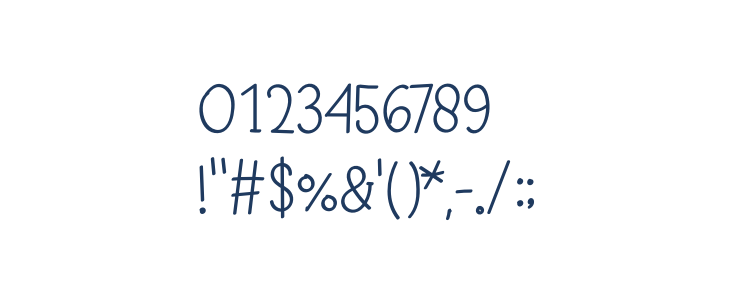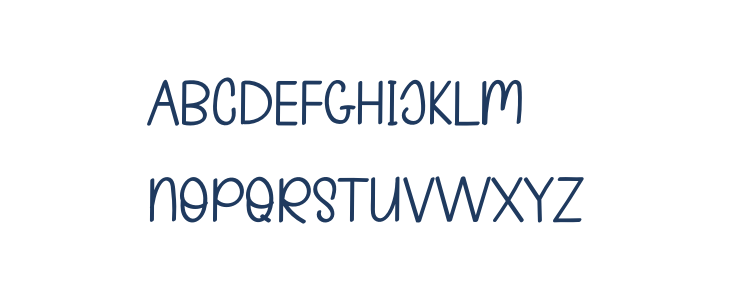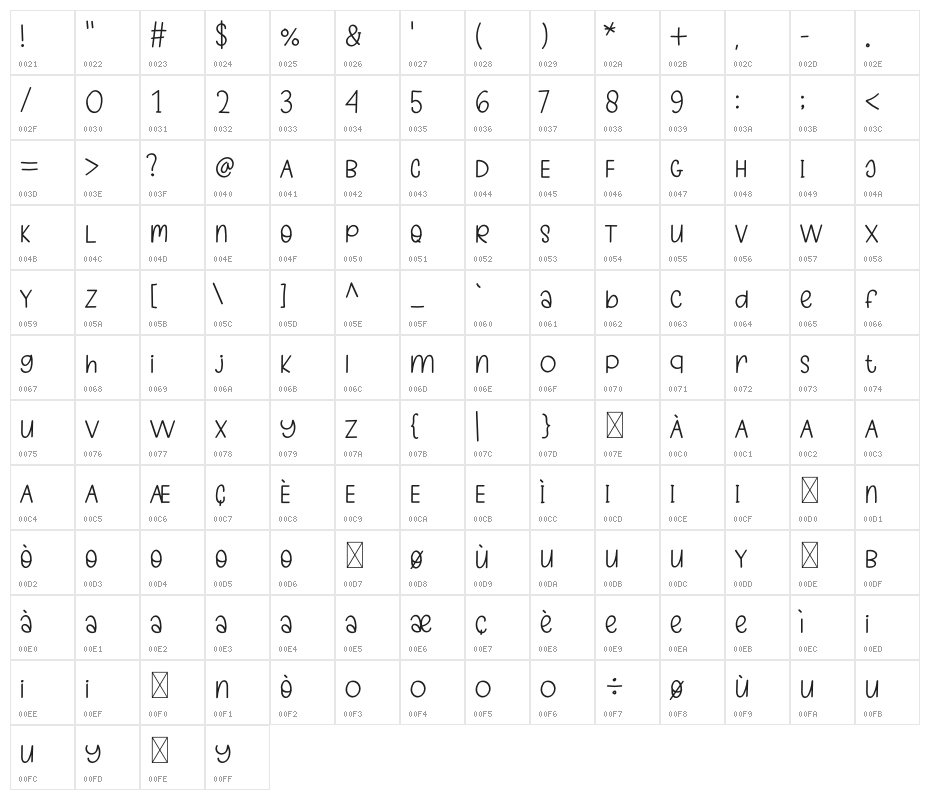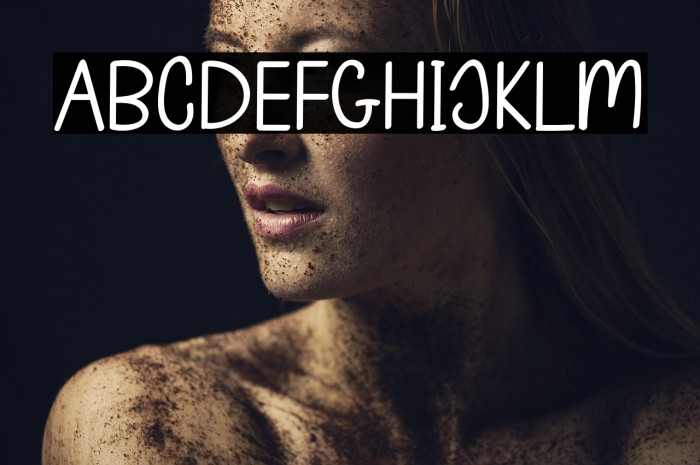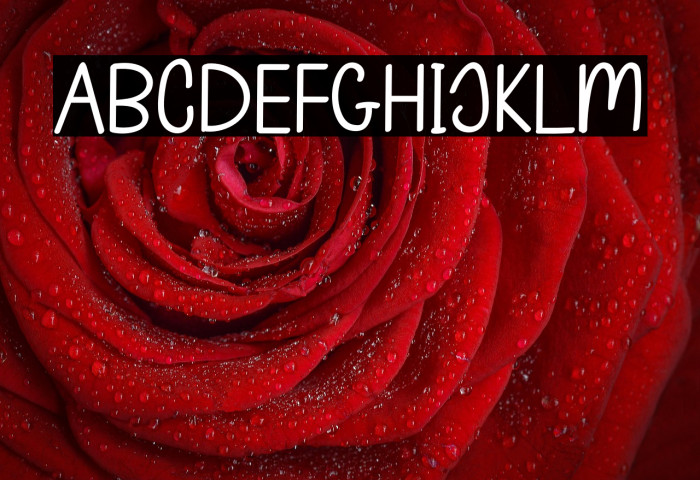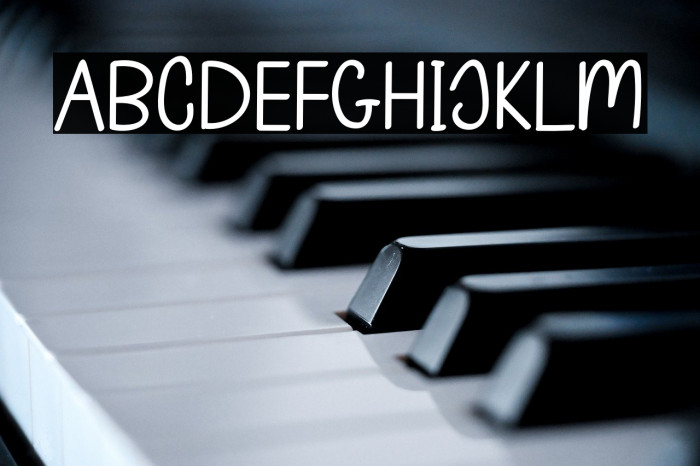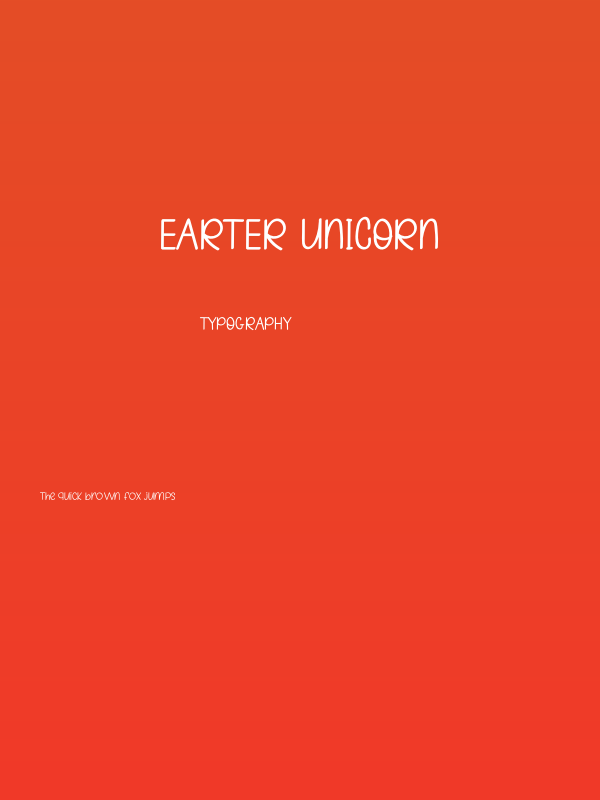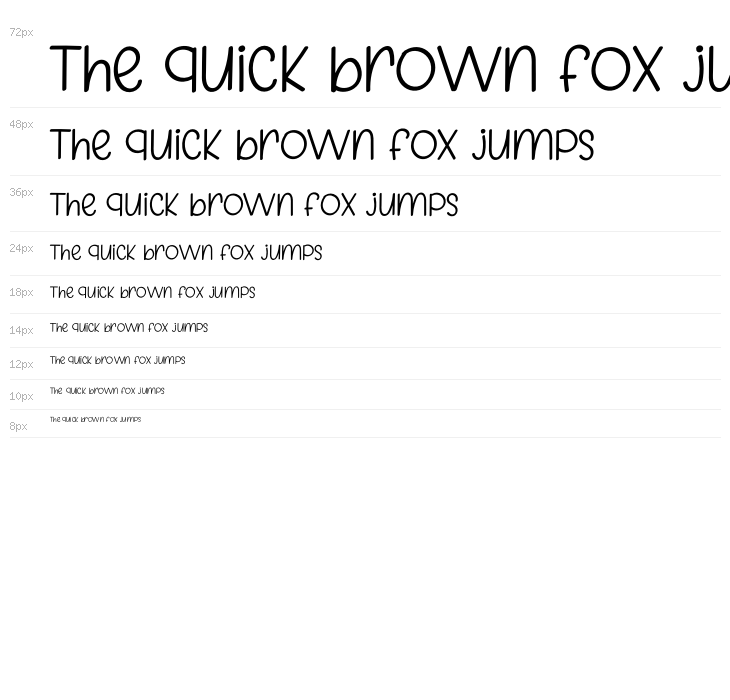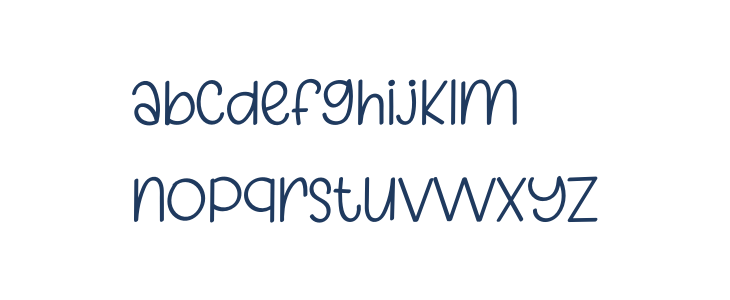
Earter Unicorn Font
Earter Unicorn Description
A playful, rounded handwritten typeface with consistent stroke width, open counters, and a whimsical, informal appearance. The characters are tall with a slight bounce, giving a friendly and approachable feel.
| Overall Style | Playful, Informal, Whimsical |
| Use Case | Headlines, Posters, Children's materials, Informal branding |
| Proposed Projects | ChildrenΓ’β¬β’s books, greeting cards, playful branding, educational materials, posters. |